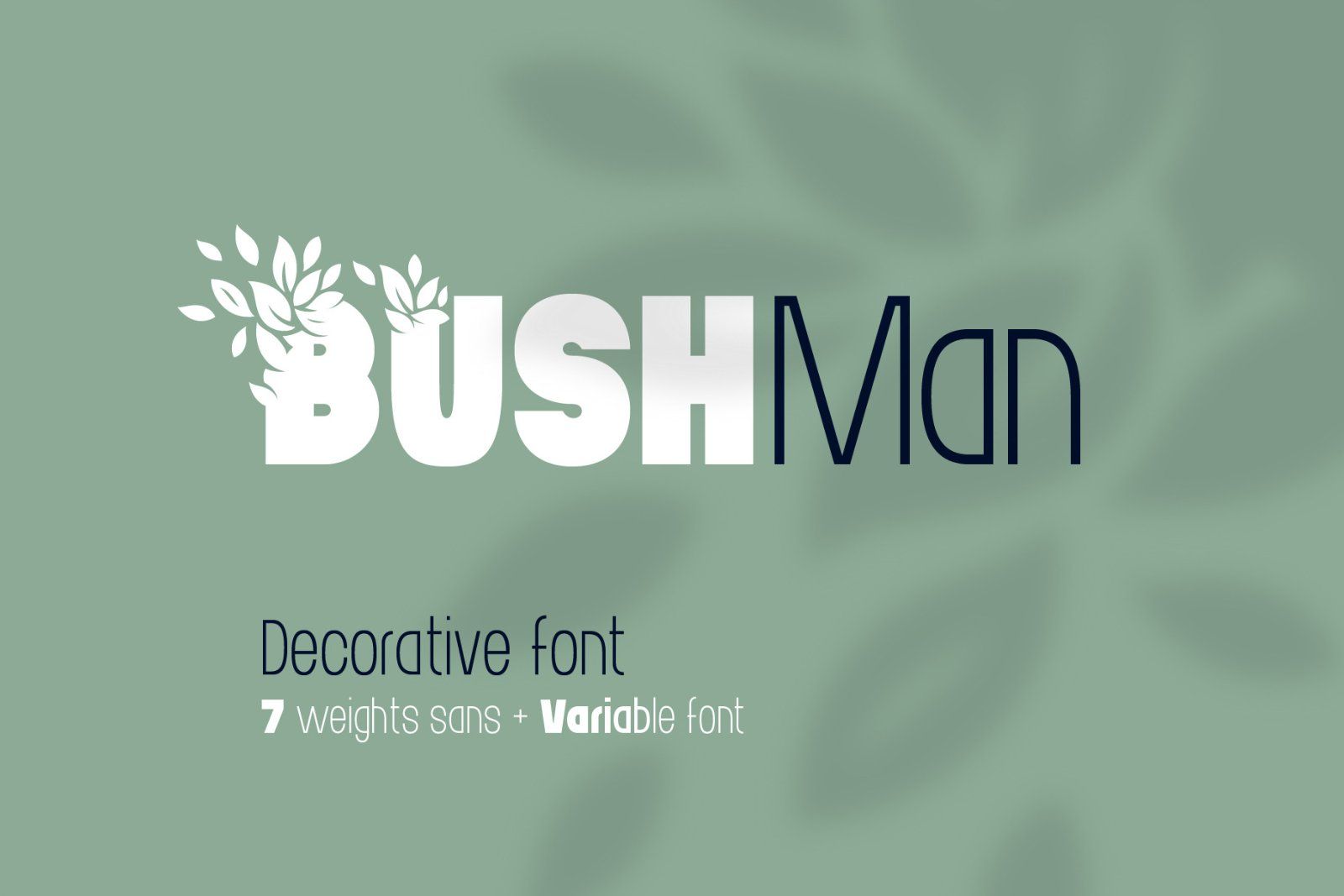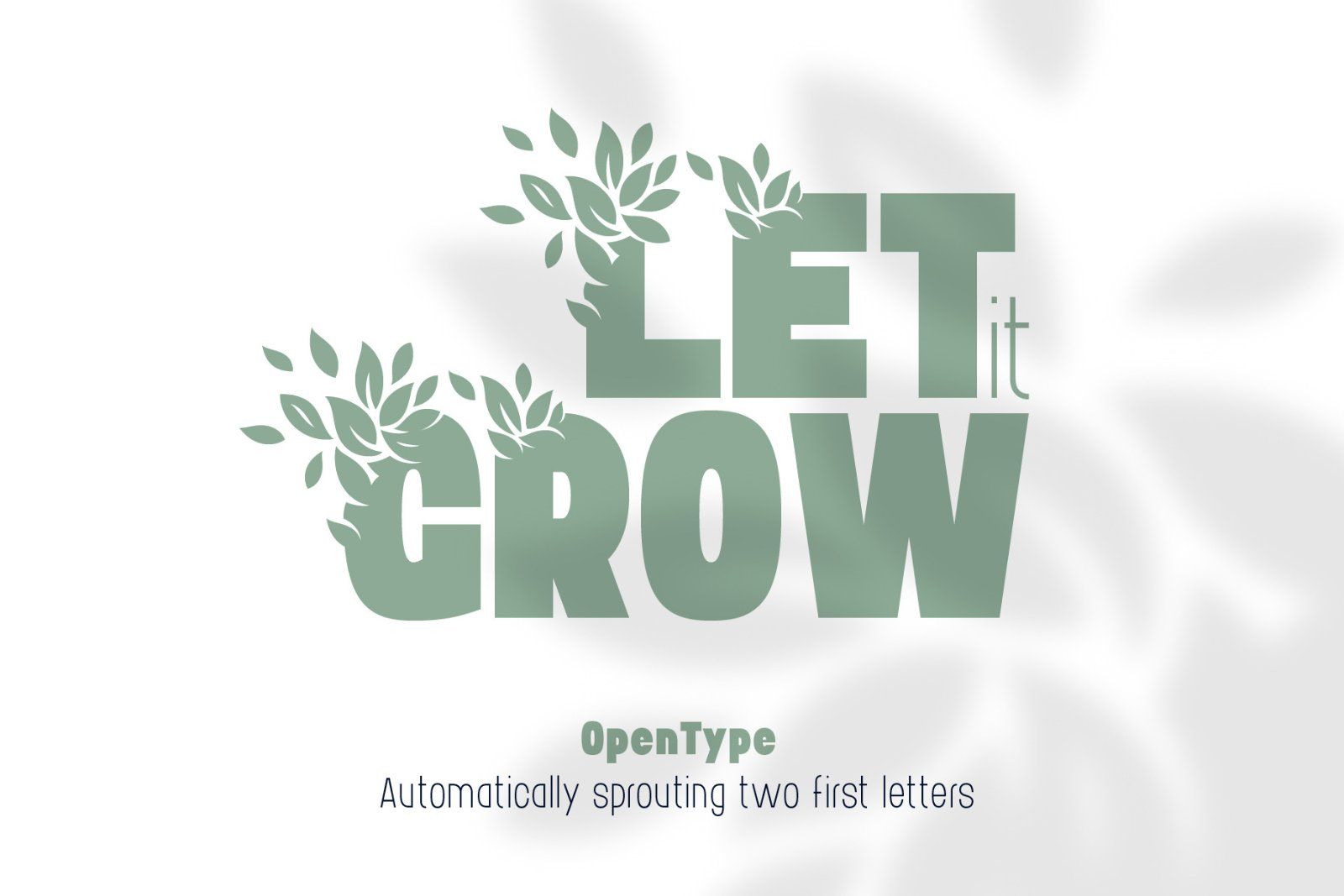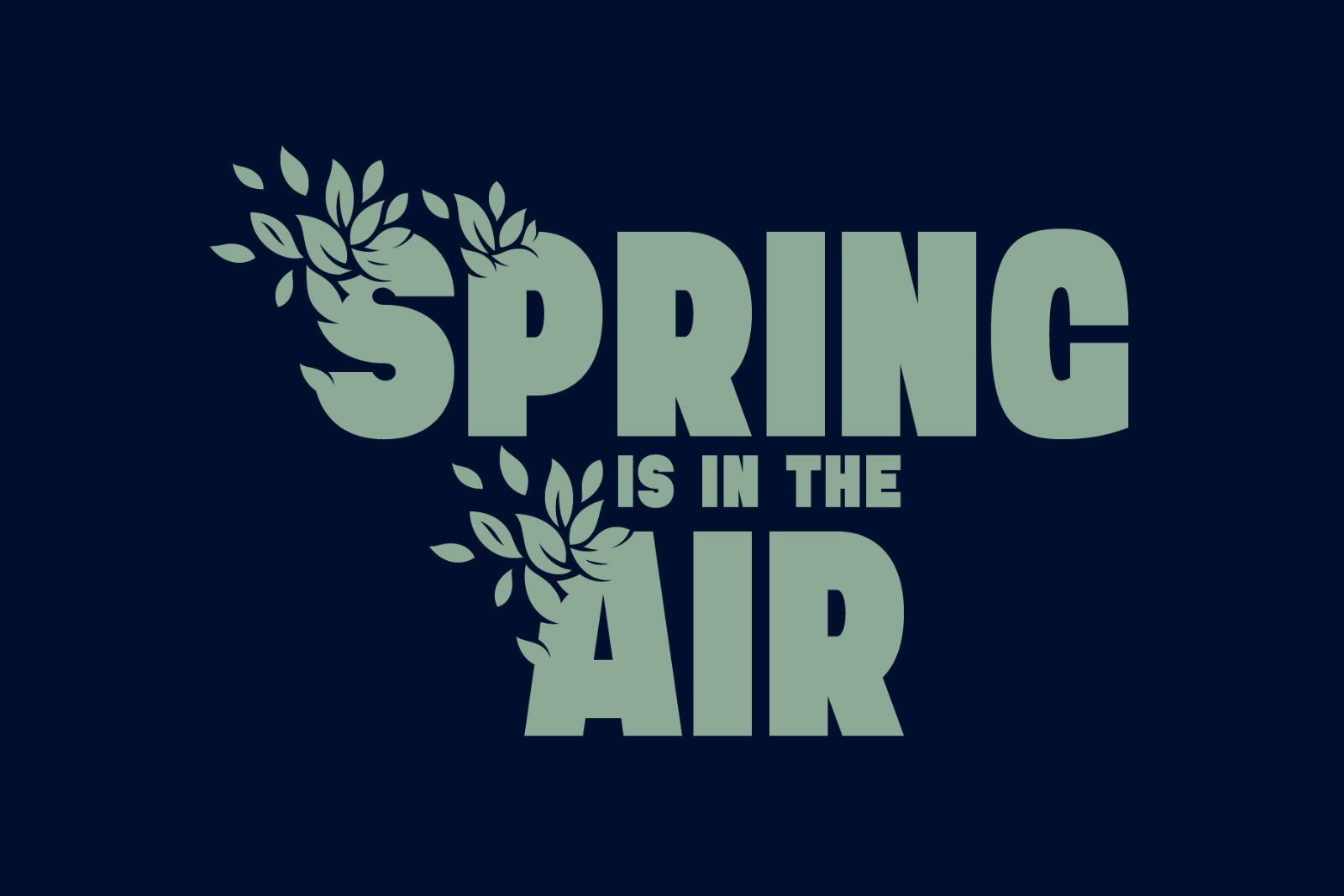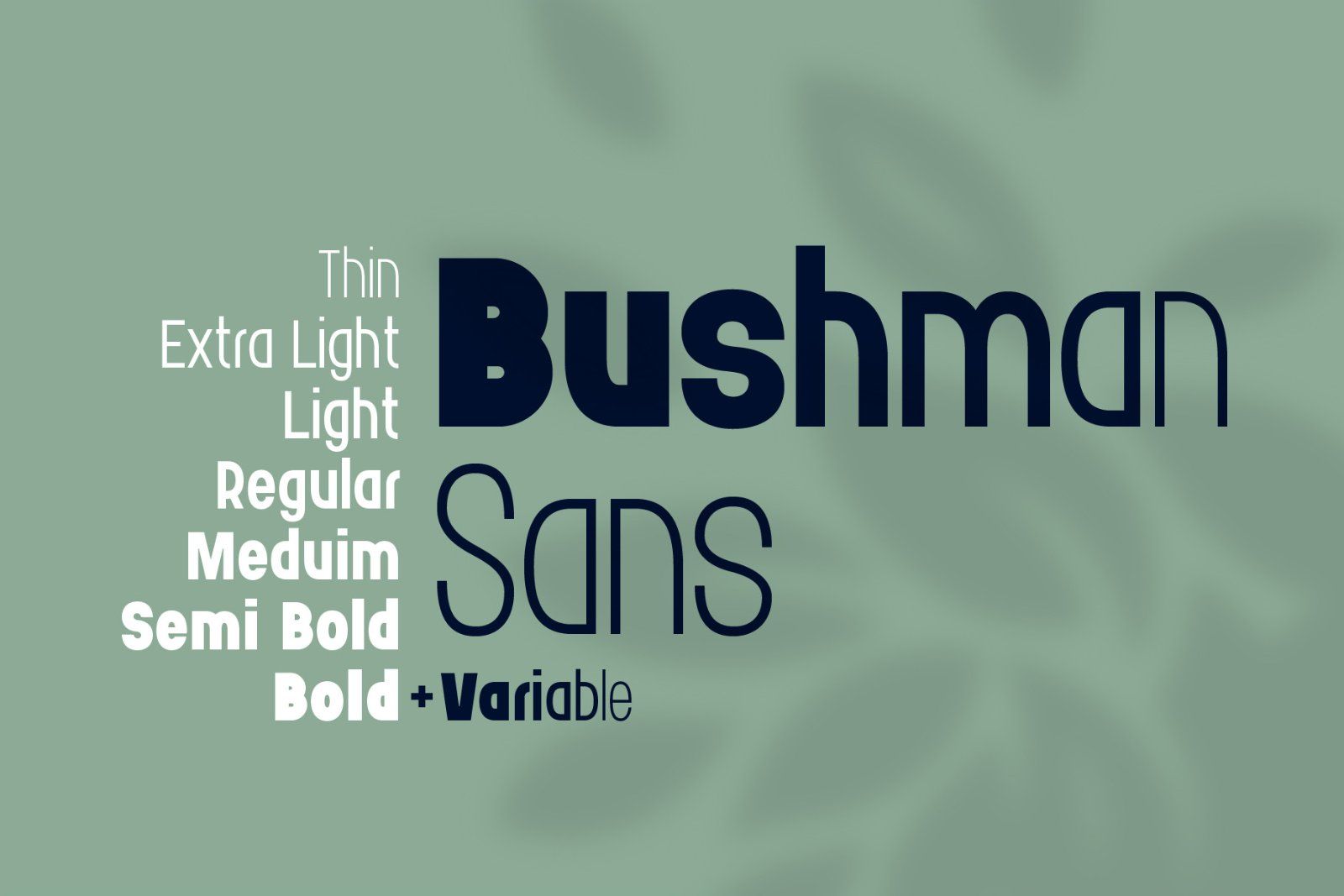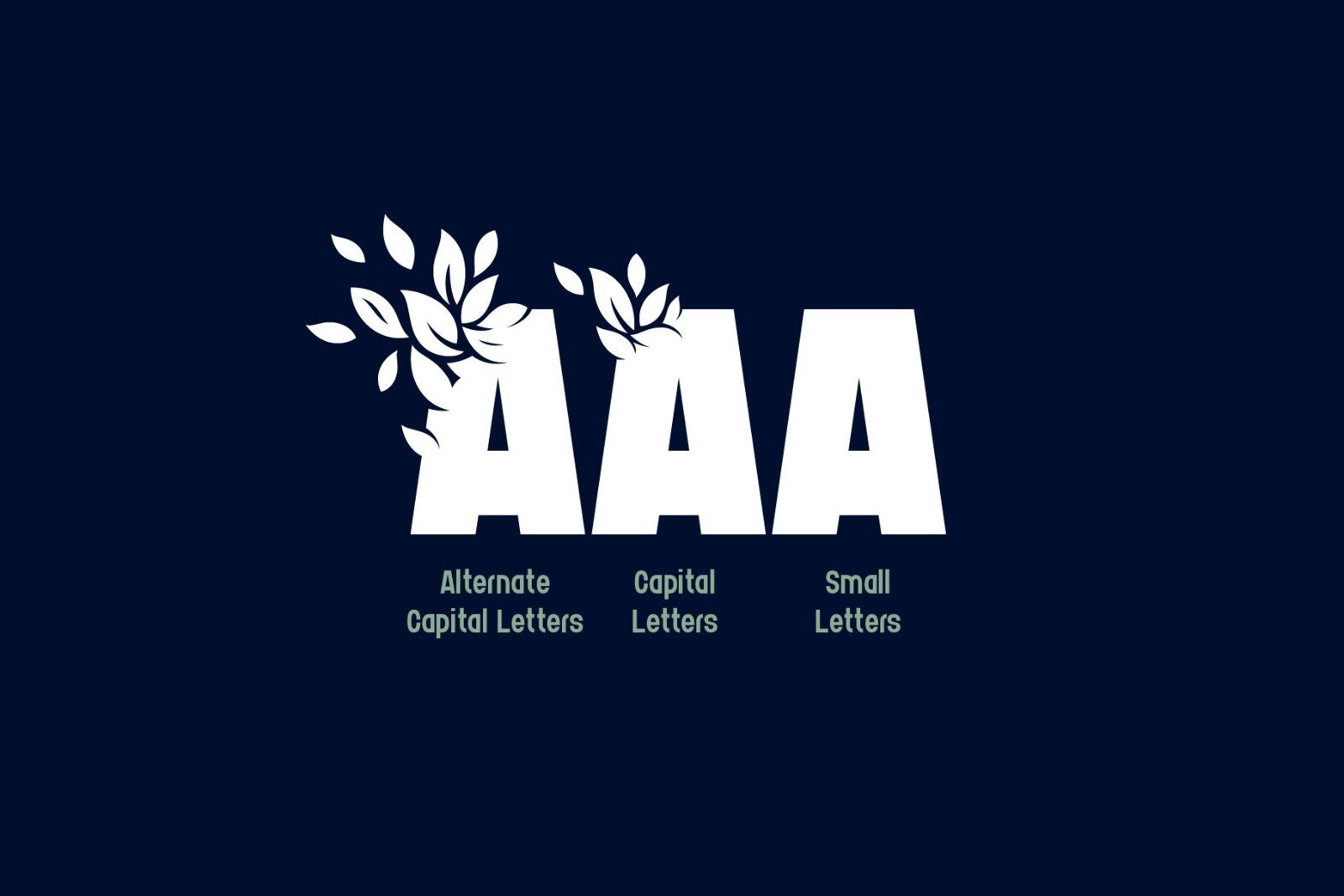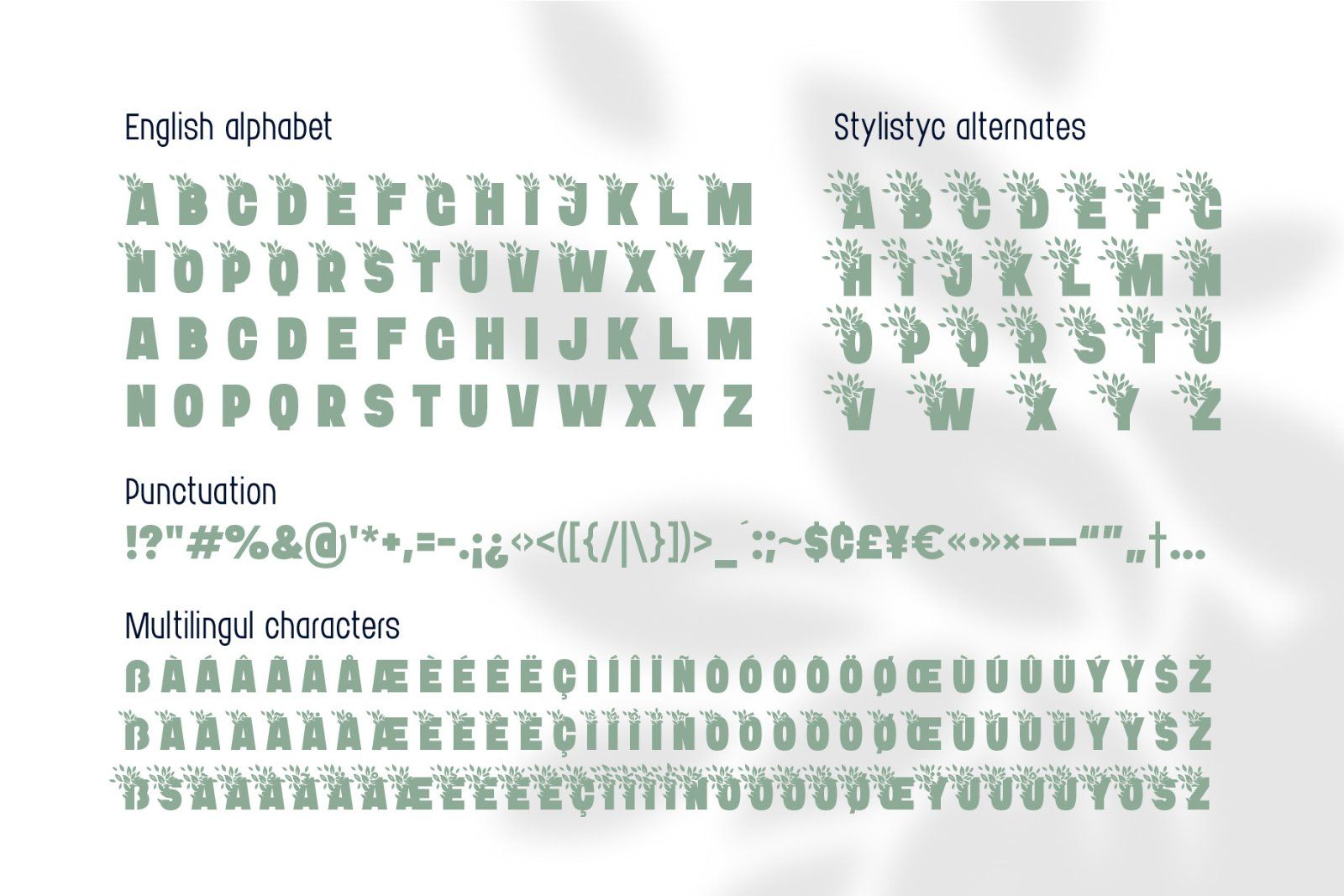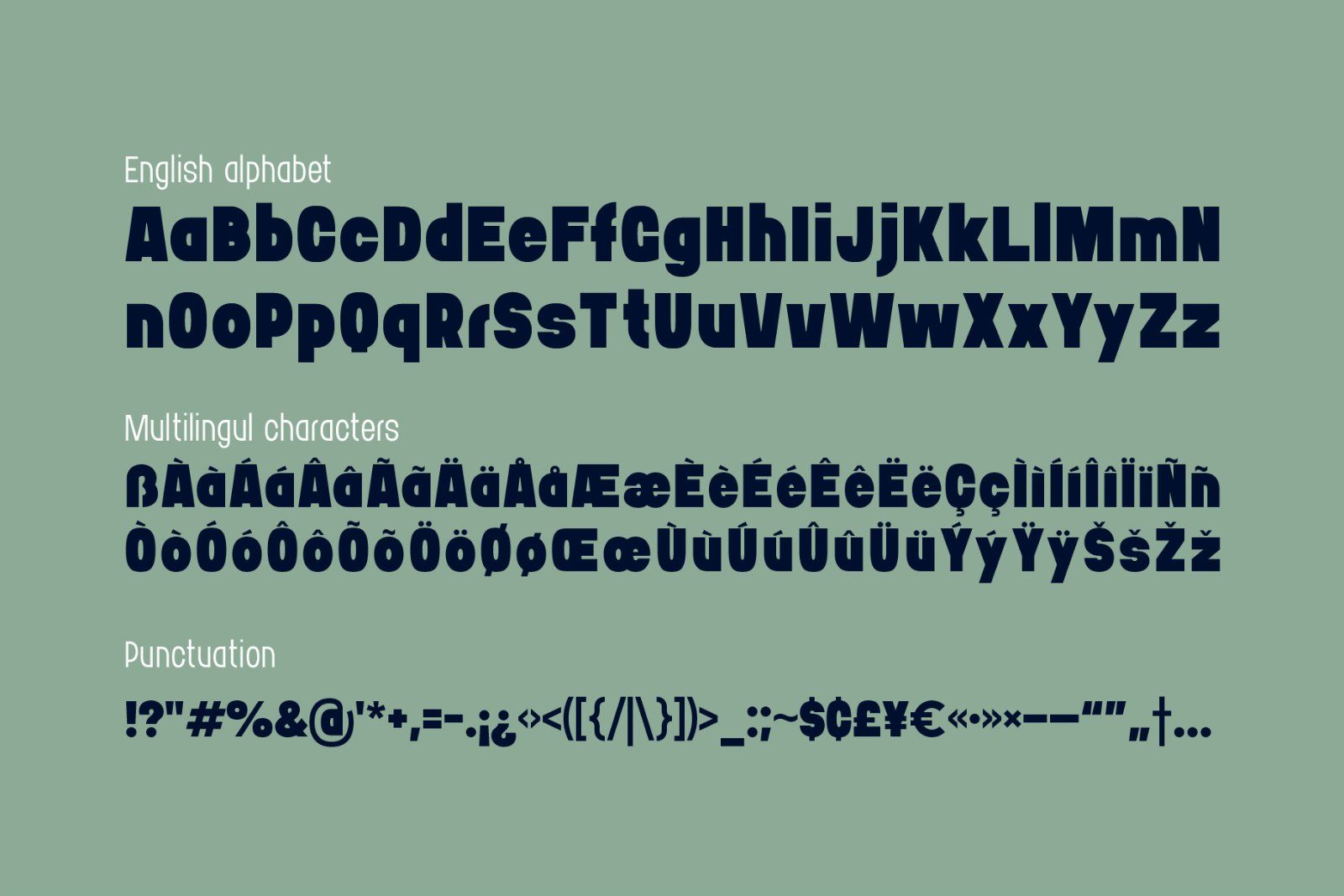
Hi, introducing an original font family Bushman. Main typeface in this set is a capital font with decorative foliage letters. It works pretty simple - just type a word as usual with first capital letter, and it will automatically make the first two letters with growing leaves.
The second big part of this set is a supporting font Bushman Sans. It's a modern grotesque font with 7 weight variations. Basically this font is supposed to support a main decorative theme with some smaller text.
Also a Bushman Sans variable font with almost infinity weight options is available. Just keep in mind that it's quite a new technology, and may not work in all the programs.